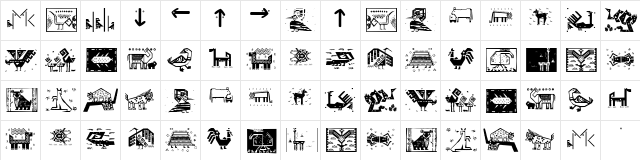
PatternsAnimals Regular Font Preview
PatternsAnimals Regular
Design Context for PatternsAnimals Typeface
PatternsAnimals is a composed and adaptable typeface that performs quietly and consistently across a wide range of design contexts.